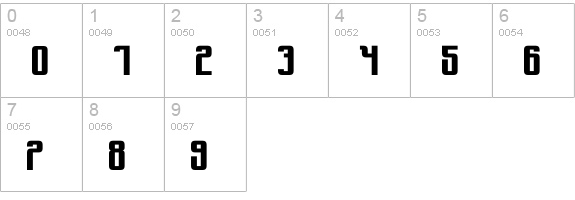
Yndu Font Details
Yndu font is a modern and stylish typeface that exudes elegance and sophistication. With its sleek lines and unique design elements, Yndu offers a contemporary twist on traditional typography. This versatile font is perfect for a wide range of projects, from branding to editorial design. What sets Yndu font apart is not only its aesthetic appeal but also its accessibility. It is available for free download at FontsMarket.com, making it easy for designers and creatives to incorporate this stunning typeface into their work. Whether you're working on a website, logo, or print design, Yndu font will elevate your project and give it a polished and professional look. Don't miss out on this opportunity to enhance your designs with the beauty of Yndu font - download it for free today!